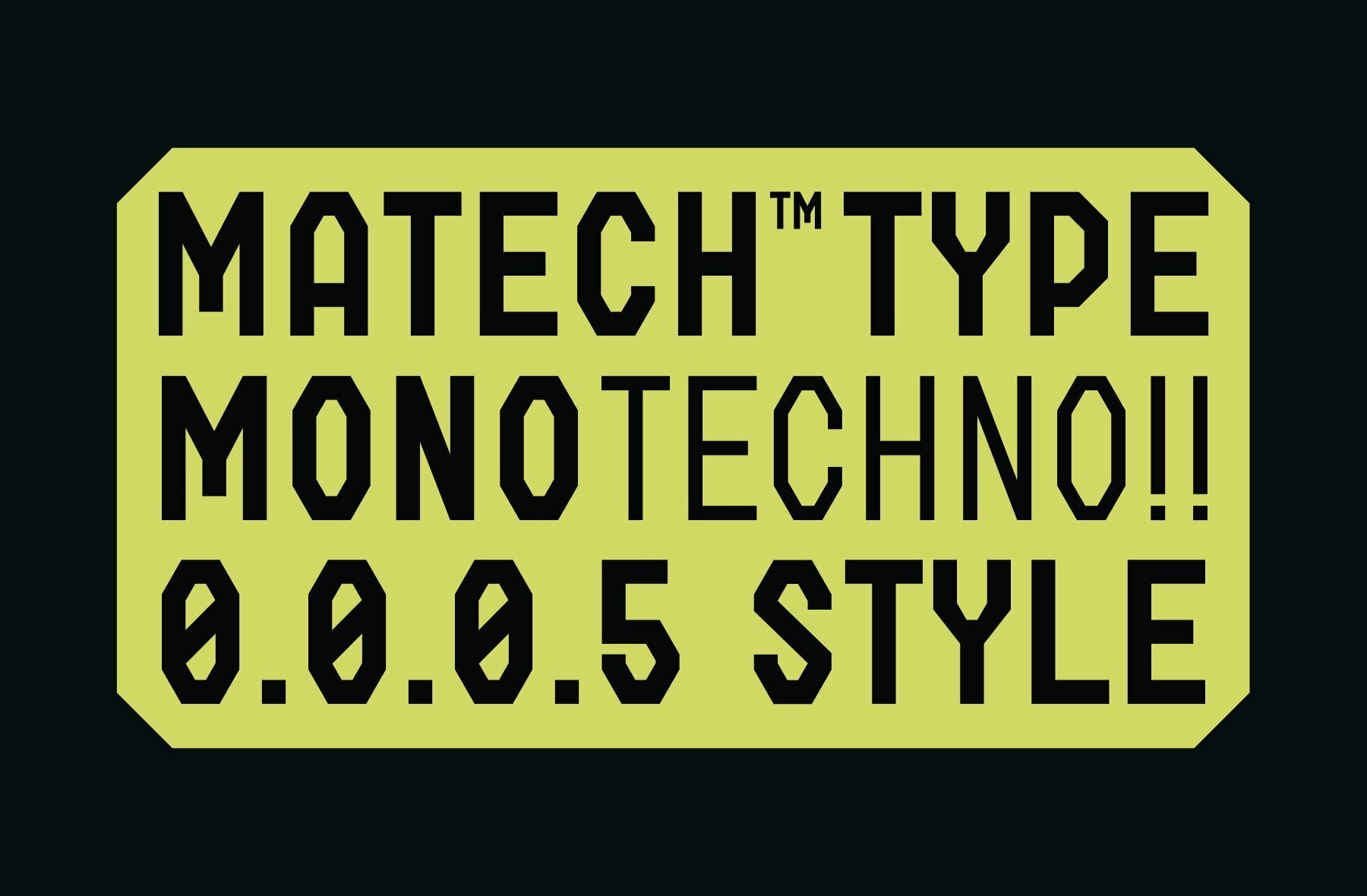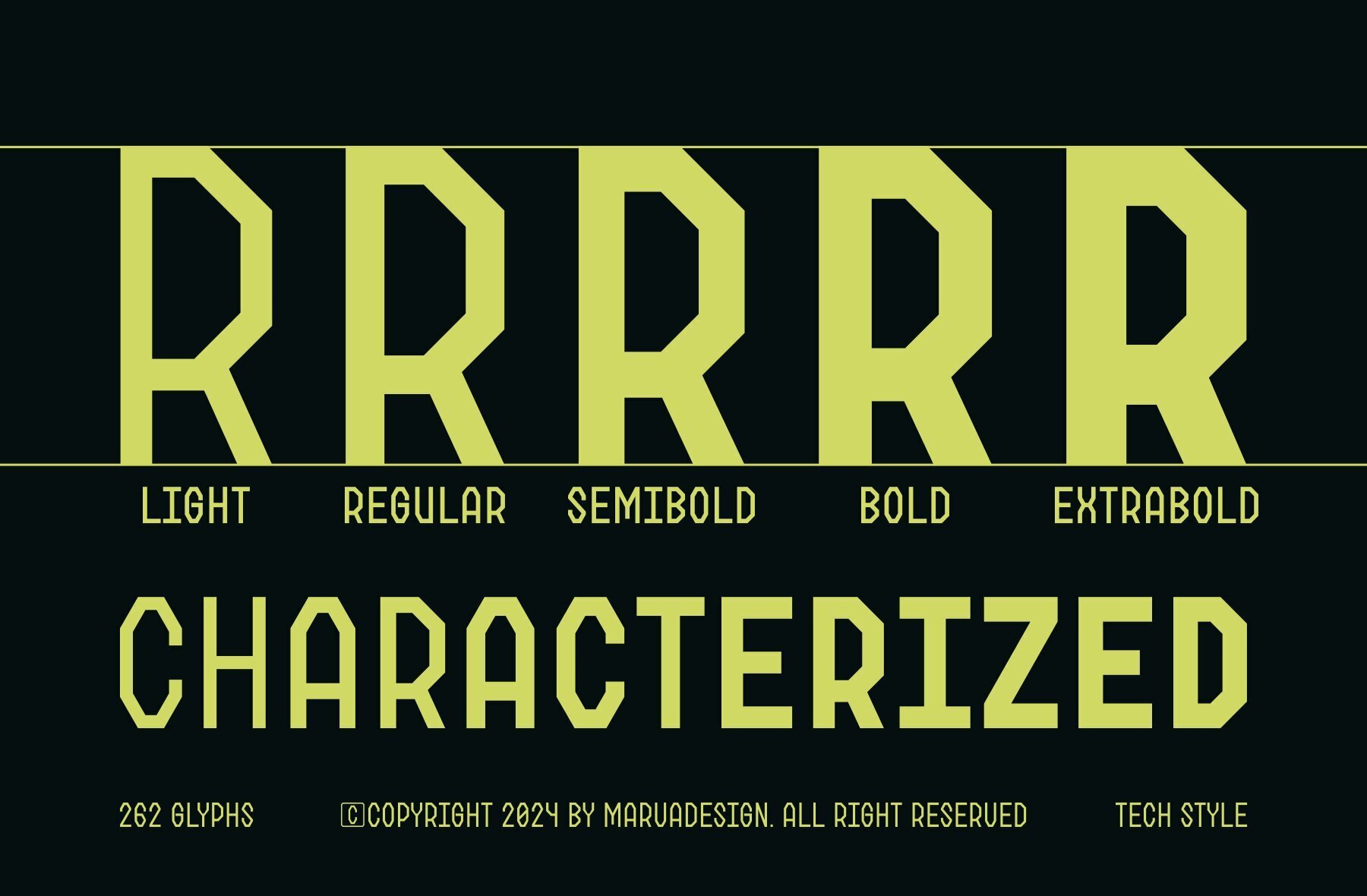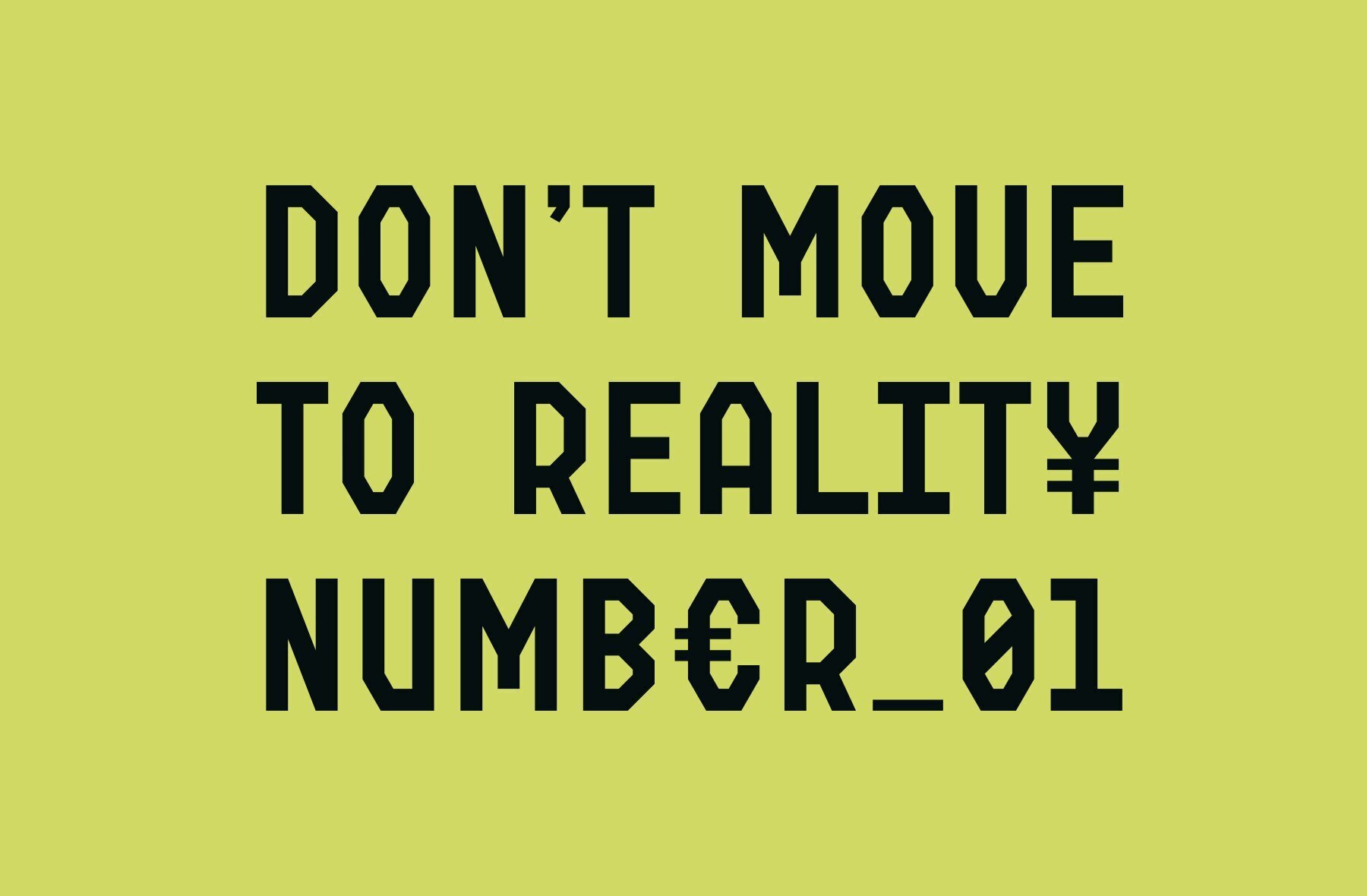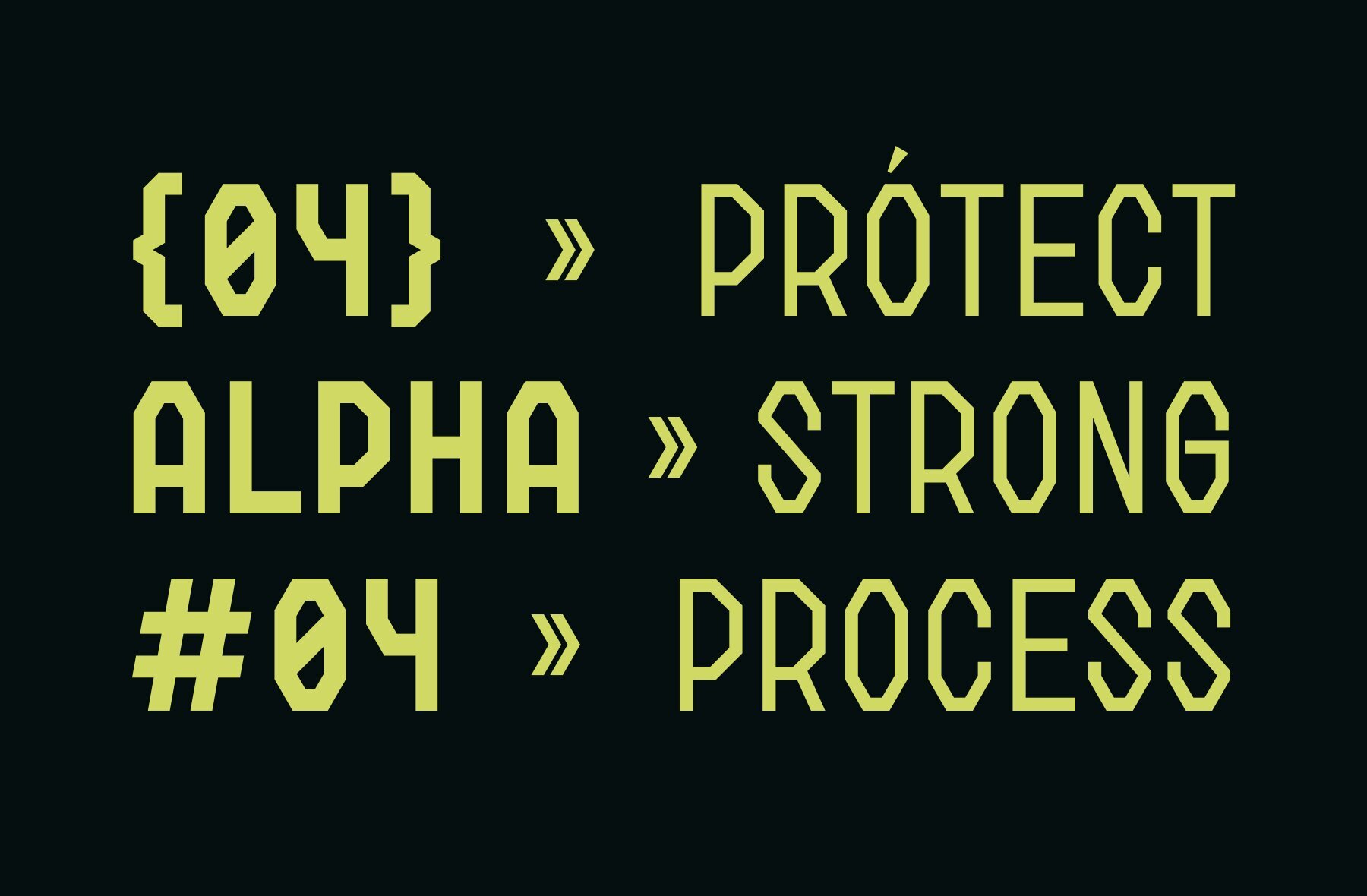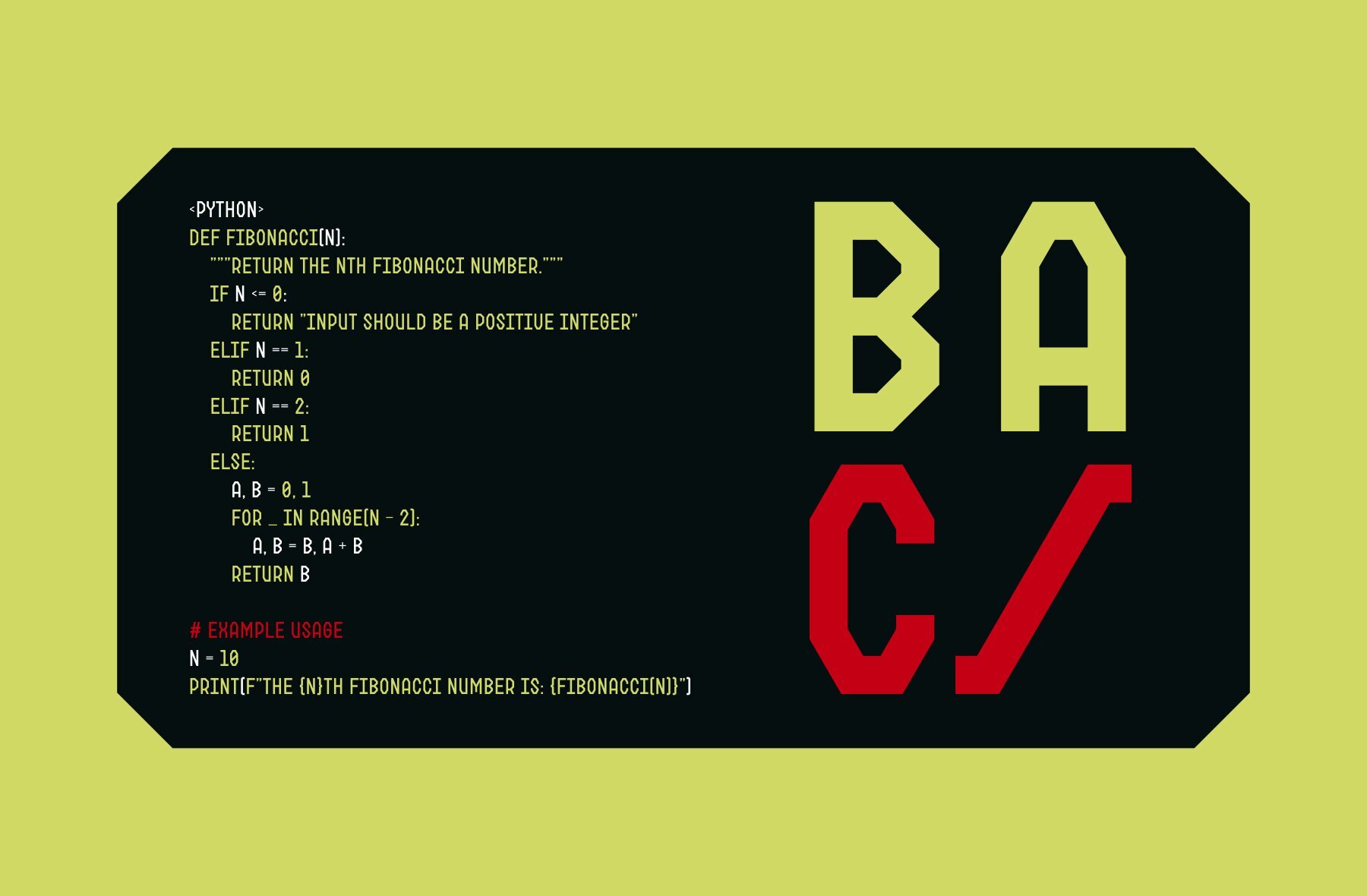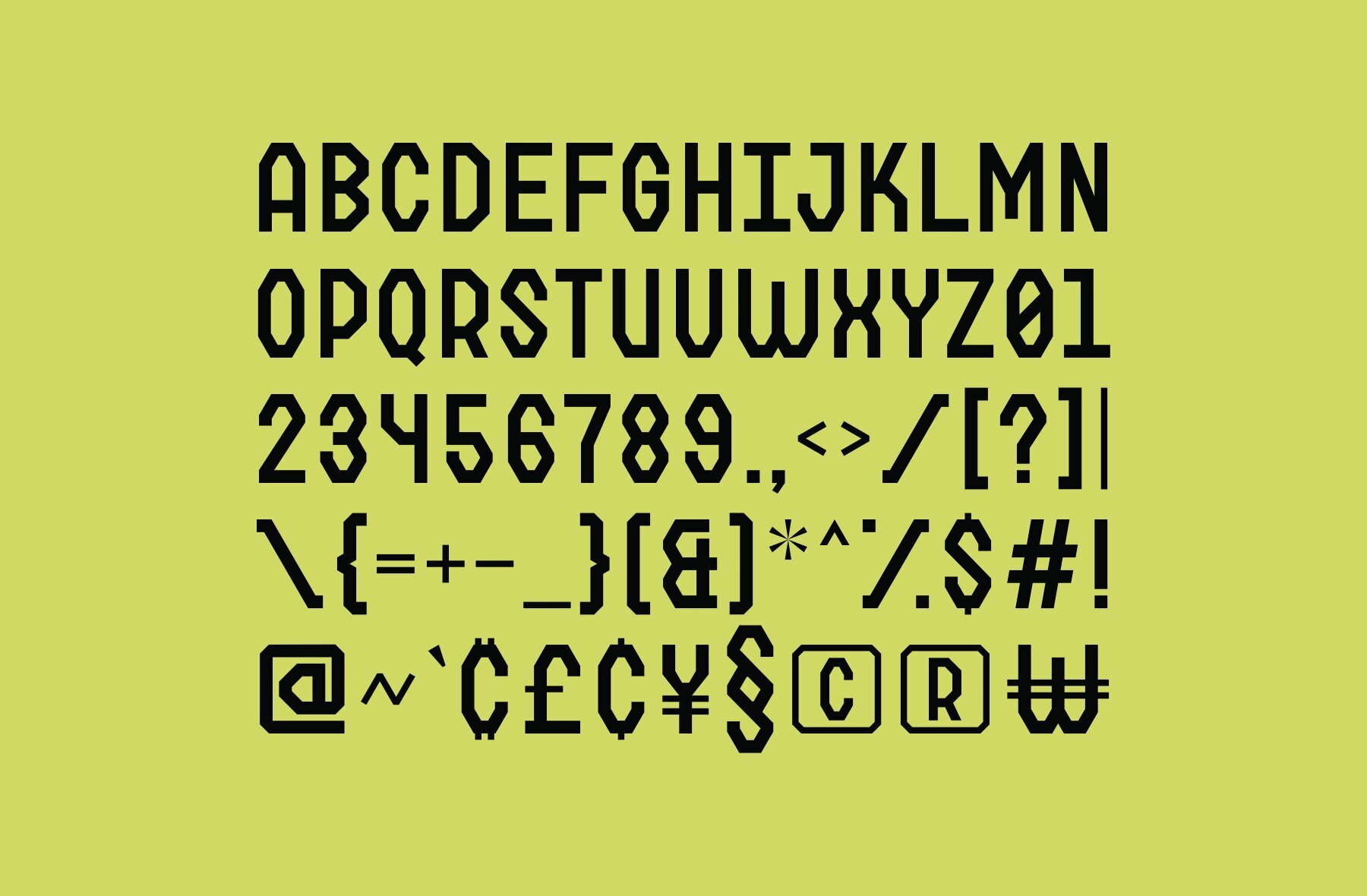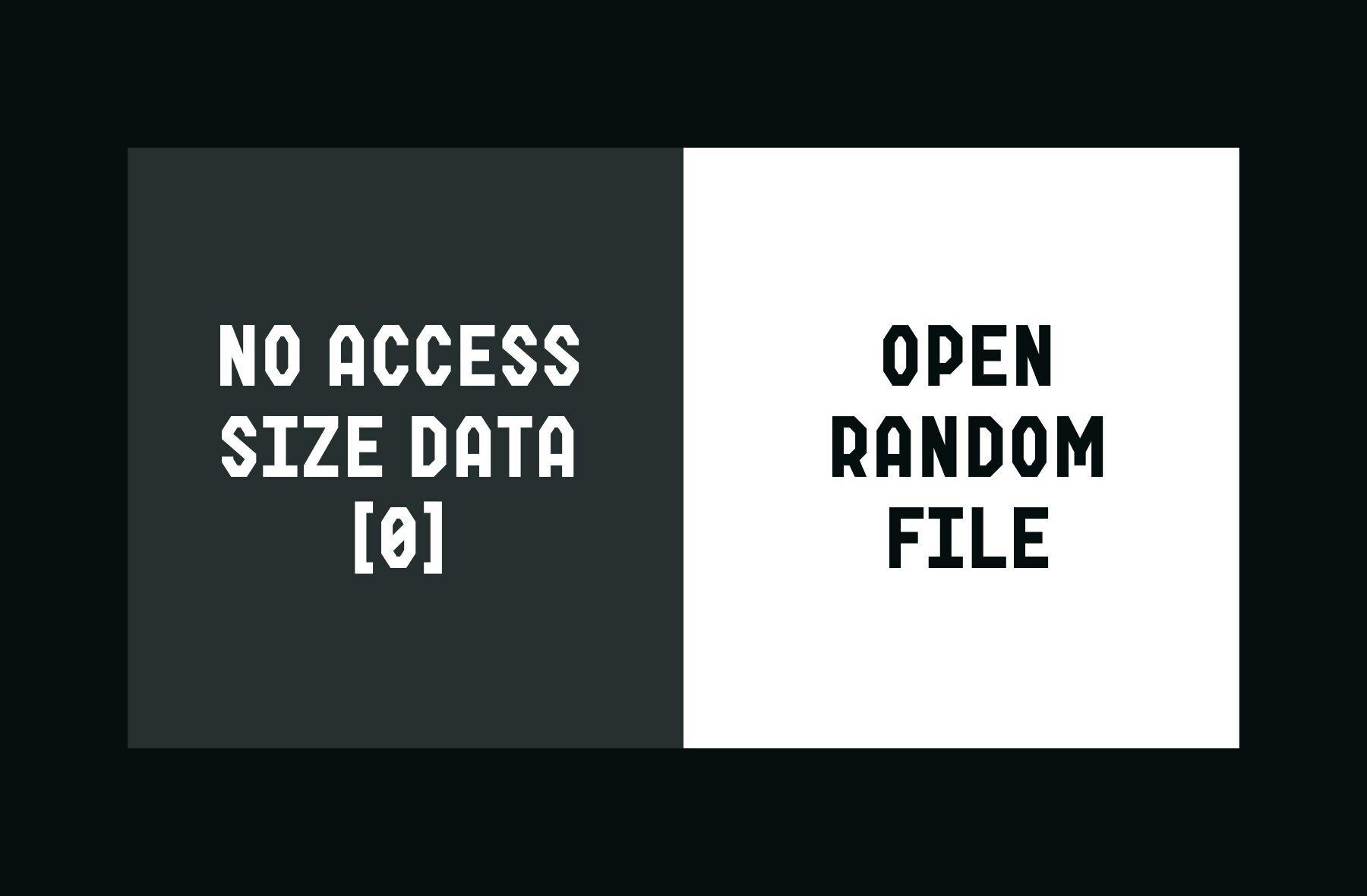
Matech Font
Introducing Matech Monospace Techno is a modern, versatile font designed for both functional and aesthetic applications, particularly in the tech and design industries. Characterized by its clean, uniform structure and geometric precision, this typeface ensures excellent readability and a sleek, contemporary appearance. Light Regular SemiBold Bold ExtraBold Matech Monospace Techno is adaptable to various design needs, from subtle text to standout headings.
The Light style of Matech Monospace Techno is delicate and airy, perfect for subtle text elements where a soft touch is desired. It maintains the font's characteristic precision while offering a lighter weight that is ideal for footnotes, captions, or any context requiring a less dominant typeface.
The Regular style serves as the standard weight, offering a balanced and clear presentation. This style is suitable for body text, coding environments, and general use where a harmonious blend of readability and modern aesthetics is essential.
Introduces a slightly heavier weight, adding emphasis without overwhelming the overall design. It's perfect for subheadings, emphasized text segments, and instances where a stronger visual impact is required while still maintaining clarity and readability.
The Bold style offers a robust and assertive weight, making it ideal for headings, titles, and other prominent text elements. Its boldness ensures that important information stands out, capturing the reader's attention effectively while retaining the font's modern, tech-oriented vibe.
Extra Bold is the heaviest weight in the Matech Monospace Techno family, providing maximum impact and visibility. This style is designed for high-emphasis elements such as banners, posters, and significant calls to action where a commanding presence is crucial.
Whether you’re designing a website, crafting a tech blog, or developing software.